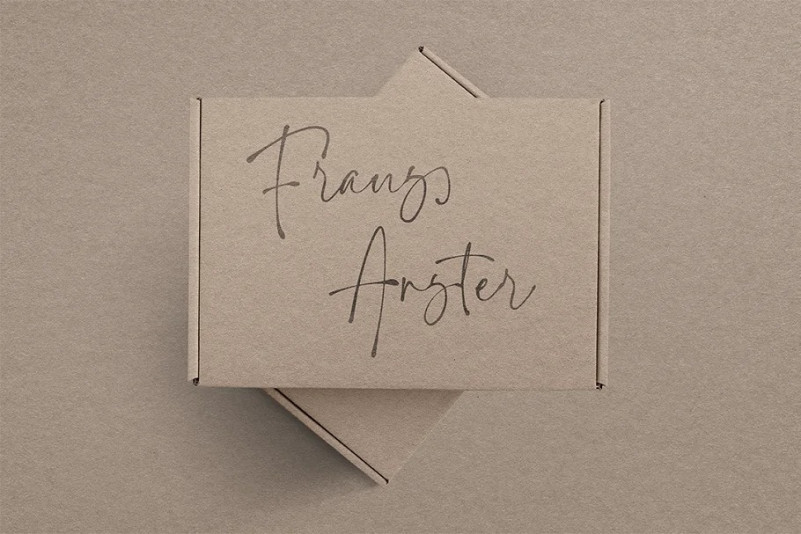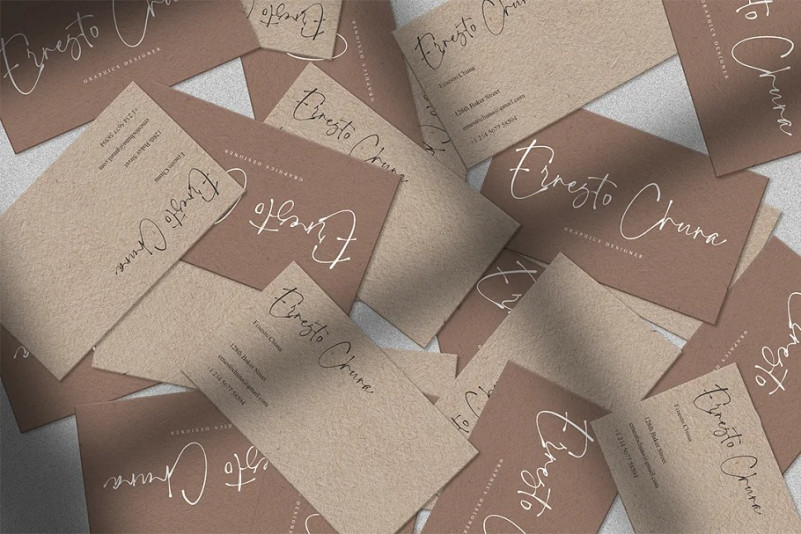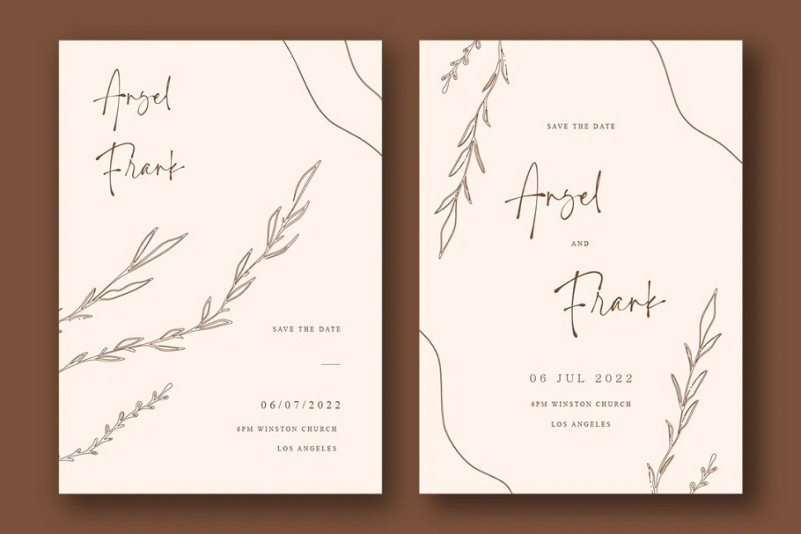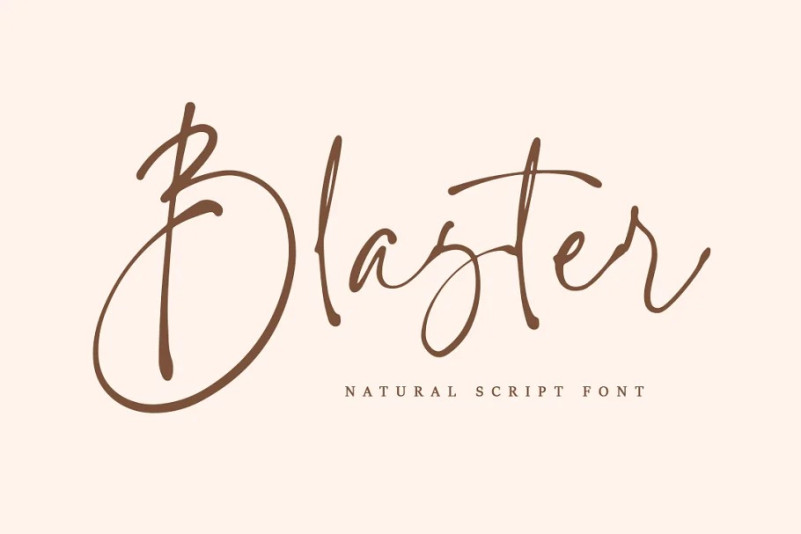
Blaster Typeface
Blaster Handwritten Typeface is a high quality script font with multilingual support and a large number of special characters. It was designed by Moove Studio. You can use this font in all your designs such as logos, wedding invitations, mockups, etc. Use this font, and your design will be much more elegant!